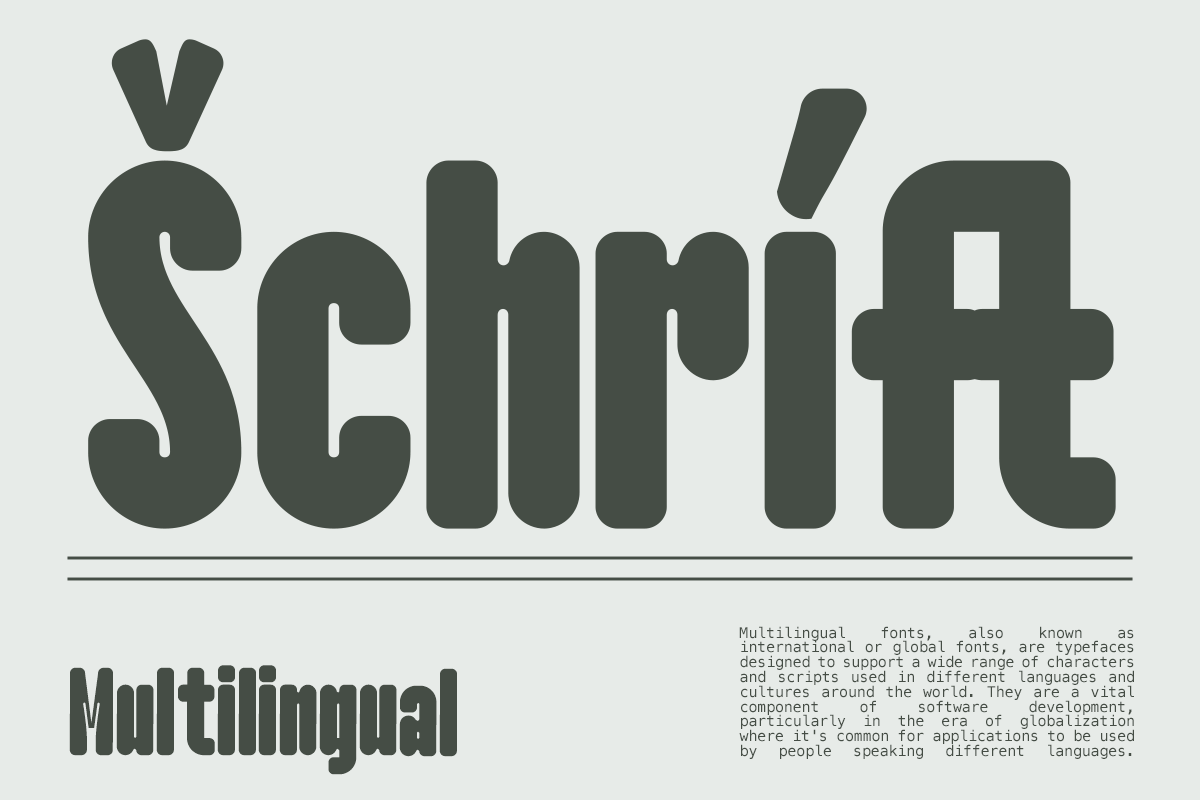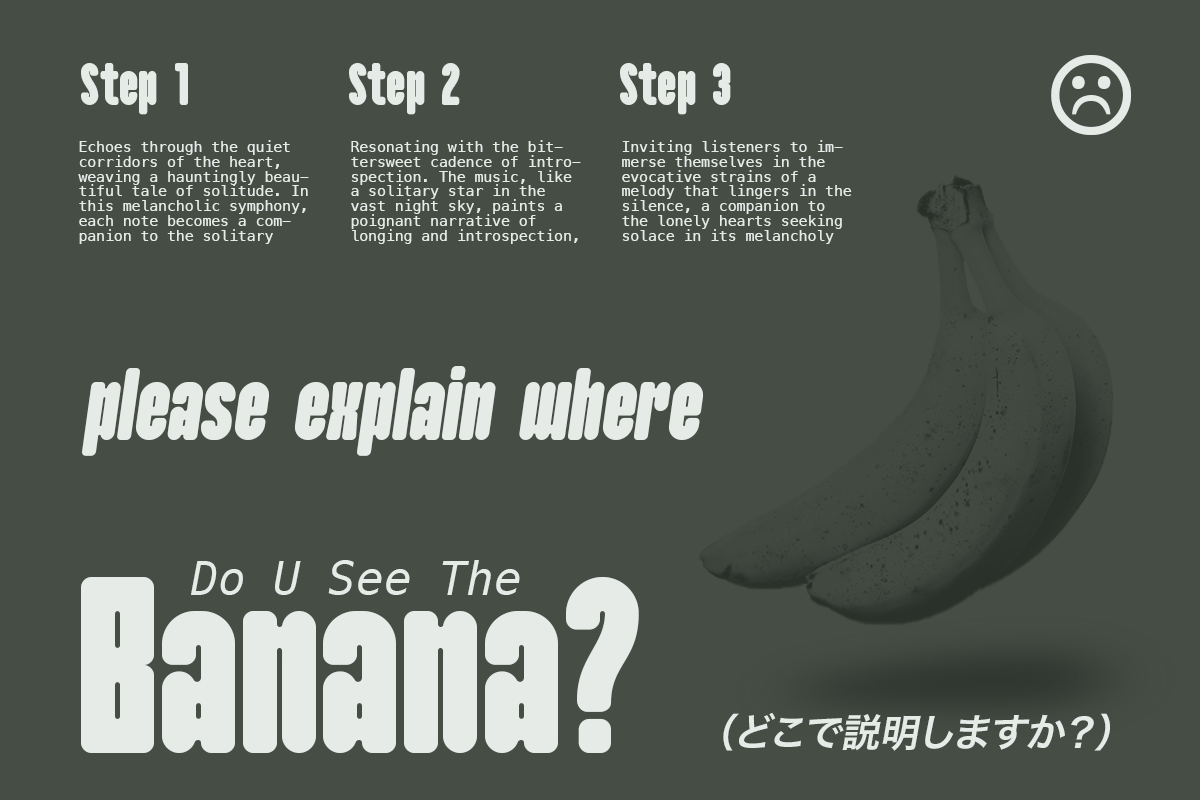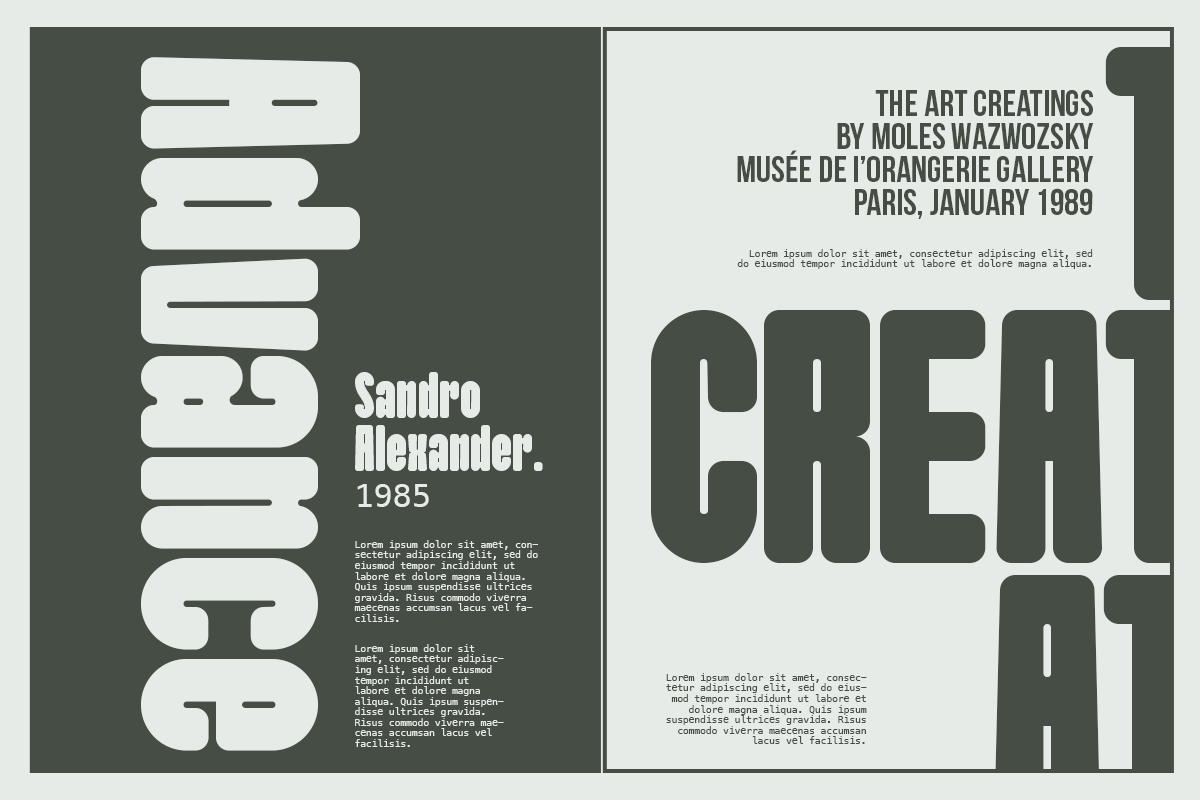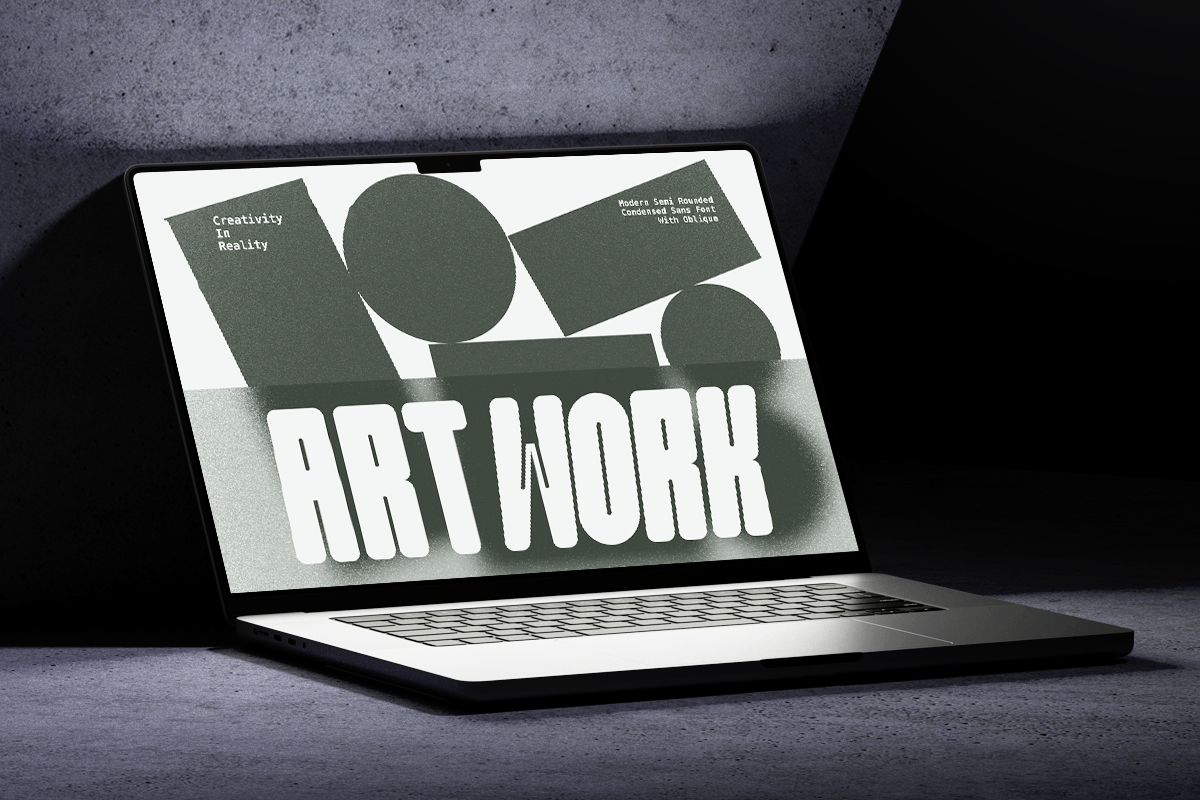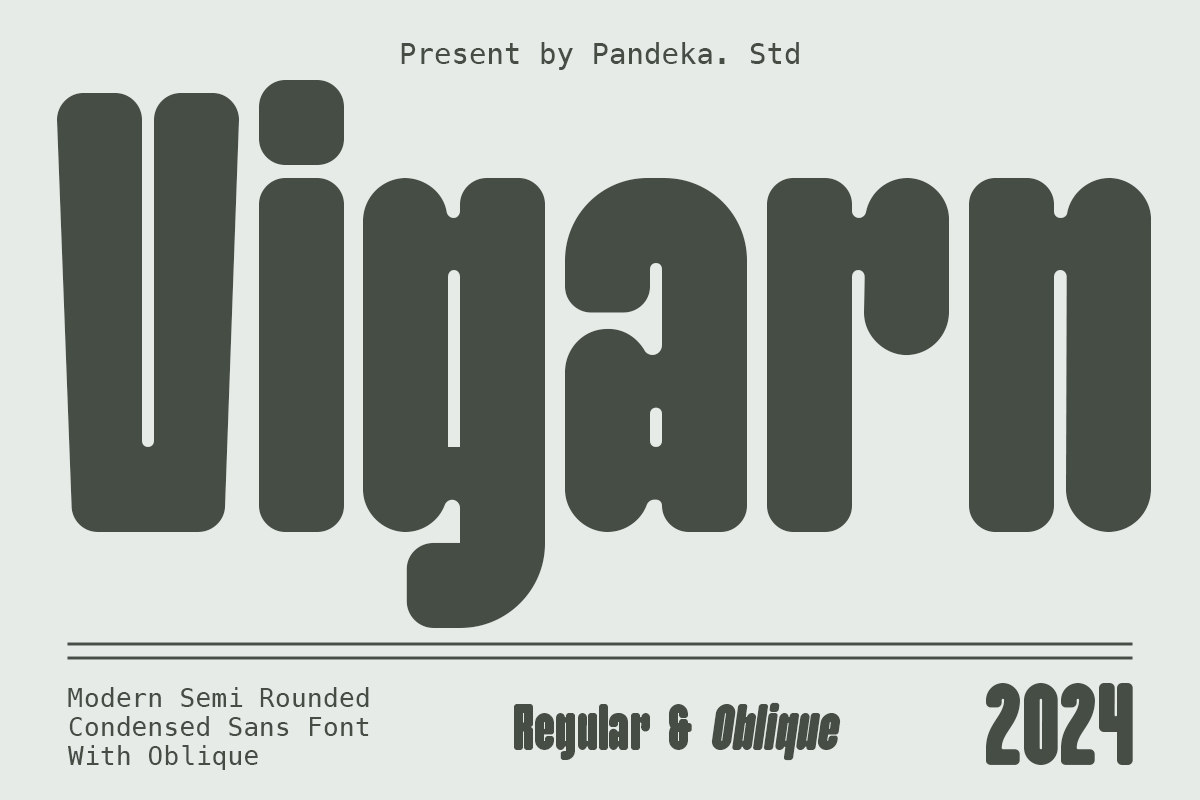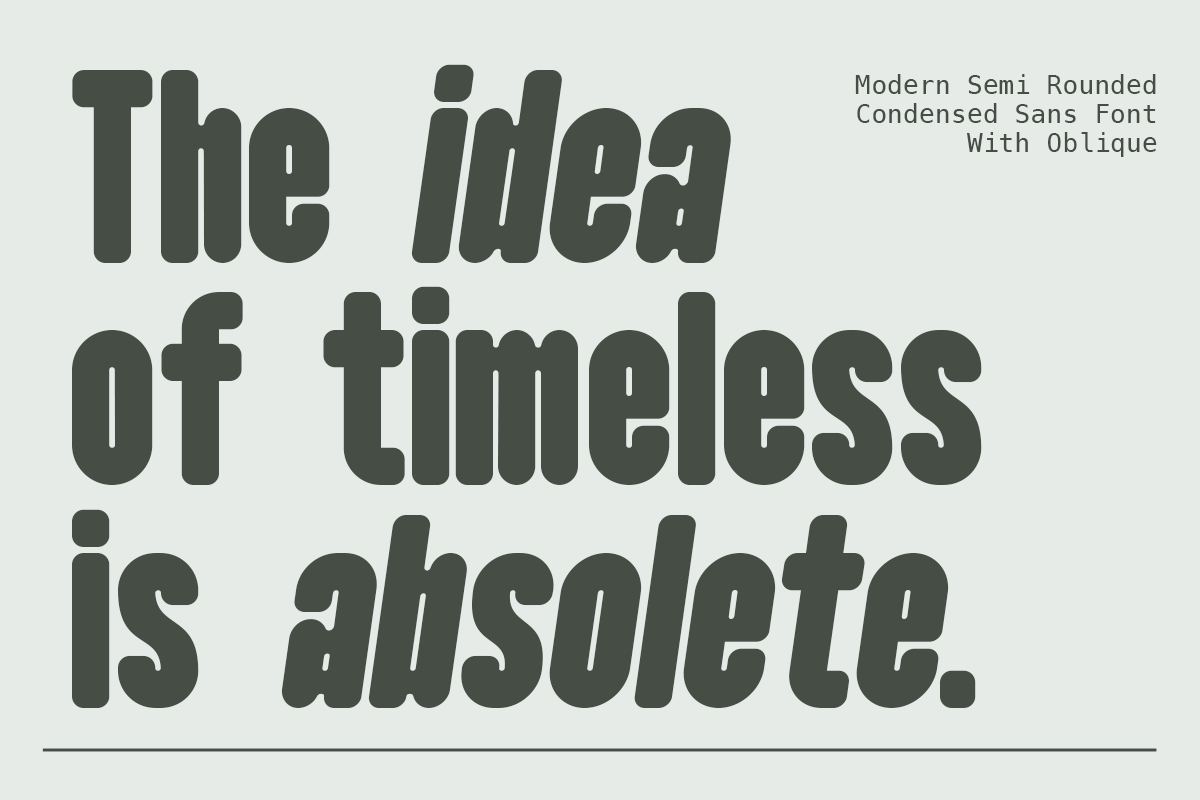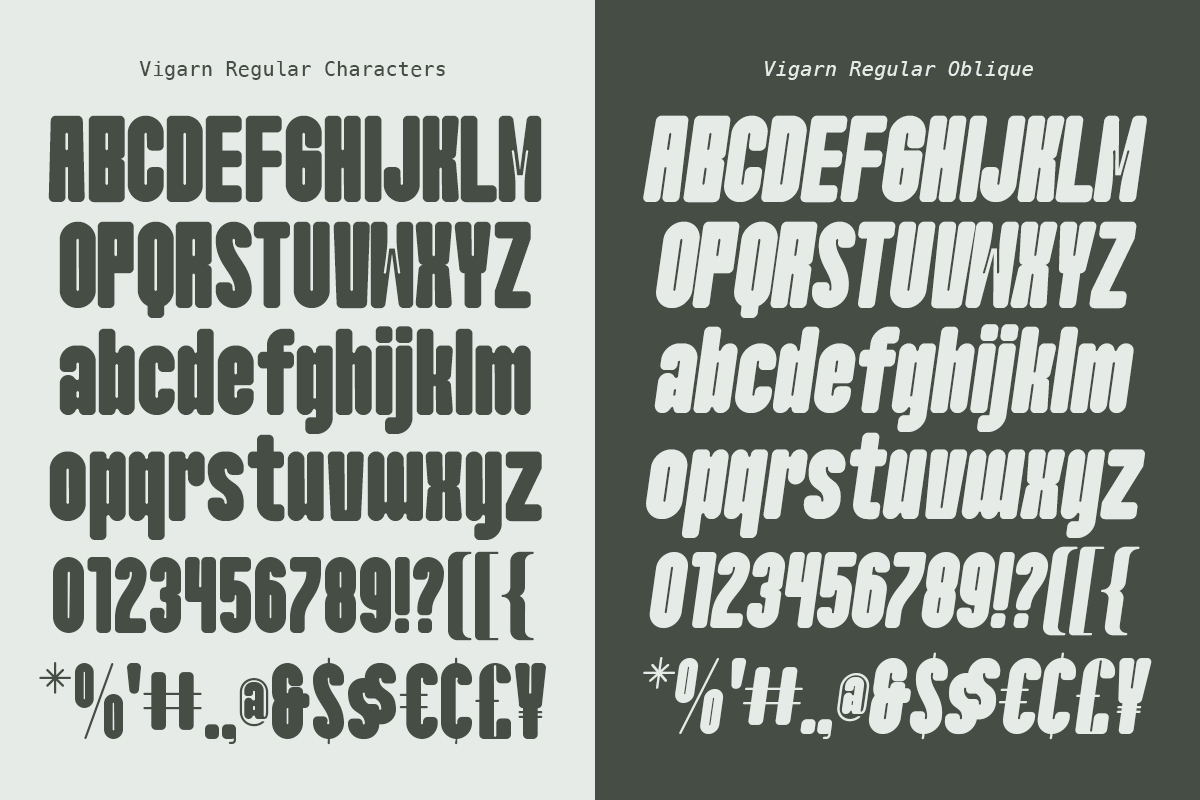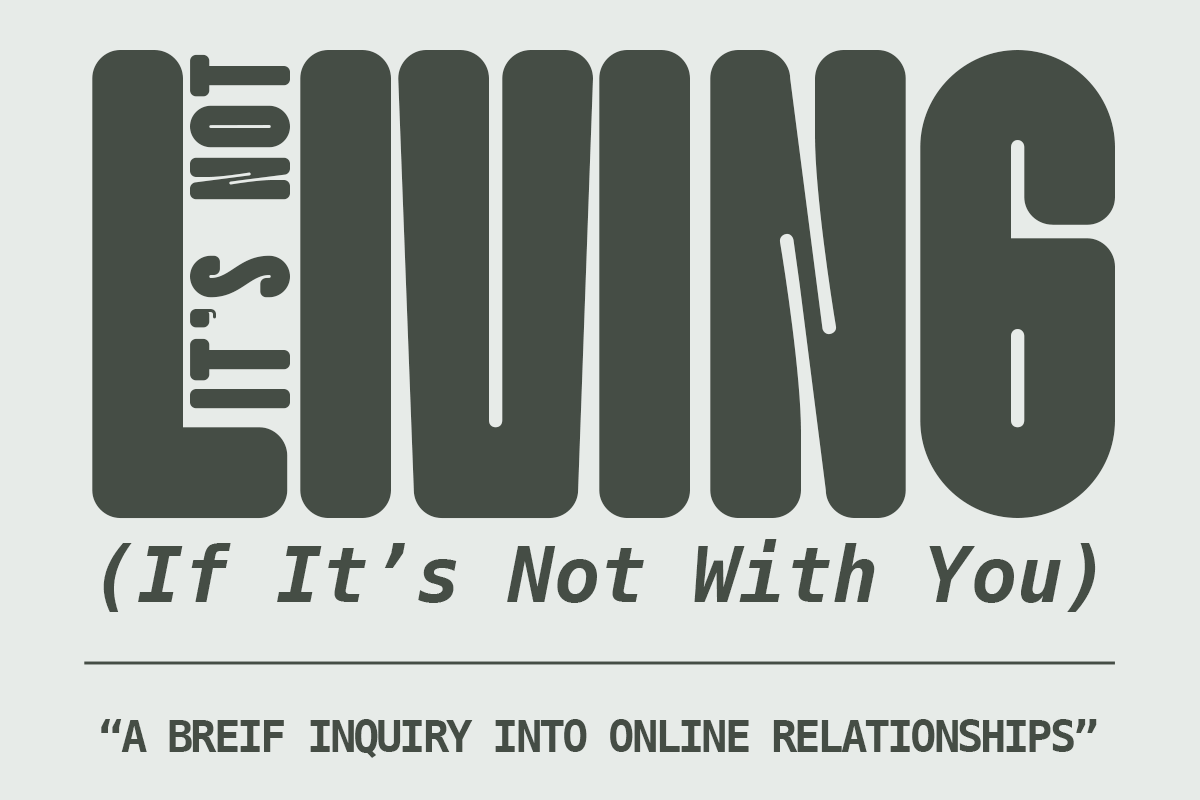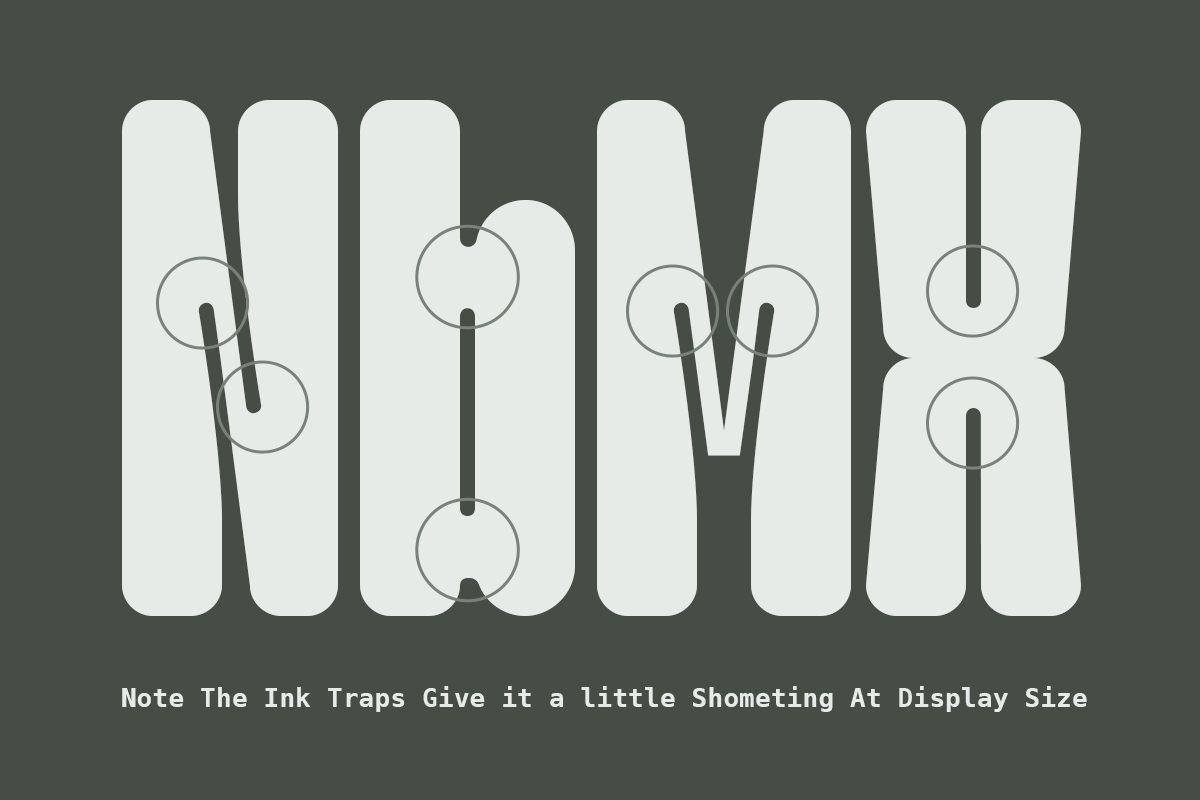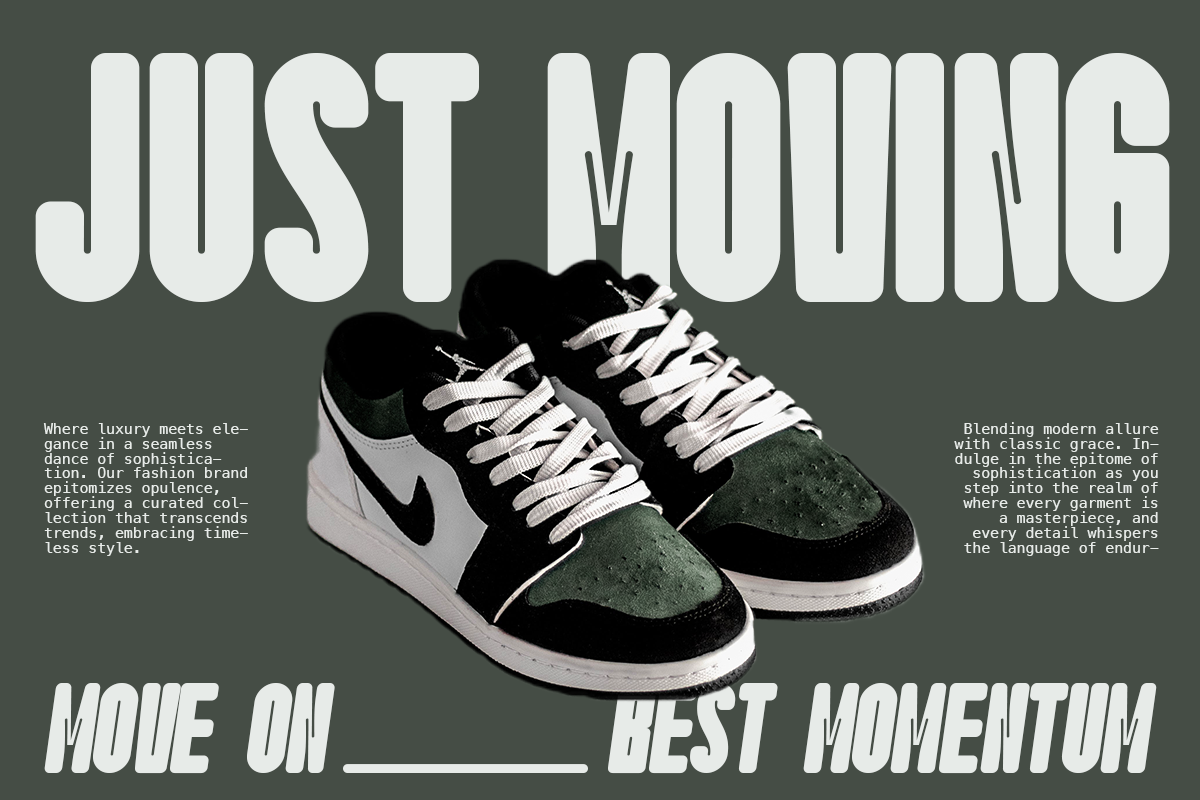
Vigarn - Modern Condensed Font
Presenting our new playful sans serif, Vigarn!
Vigarn has a strong but soft character, with a cheerful and fresh theme. Vigarn is able to answer your current needs who are designing something great.
Its weight is superior in posters, social media, headlines, magazine titles, clothing, large print formats - and wherever you want to see it. Inspired by the design styles that are currently popular, let's make your imagination come true with Vigarn